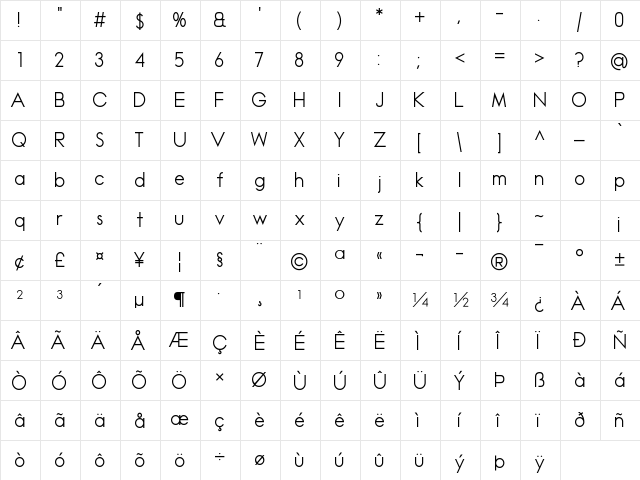
Madeleina Sans Regular
Madeleina Sans is a composed and adaptable typeface that performs quietly and consistently across a wide range of design contexts.